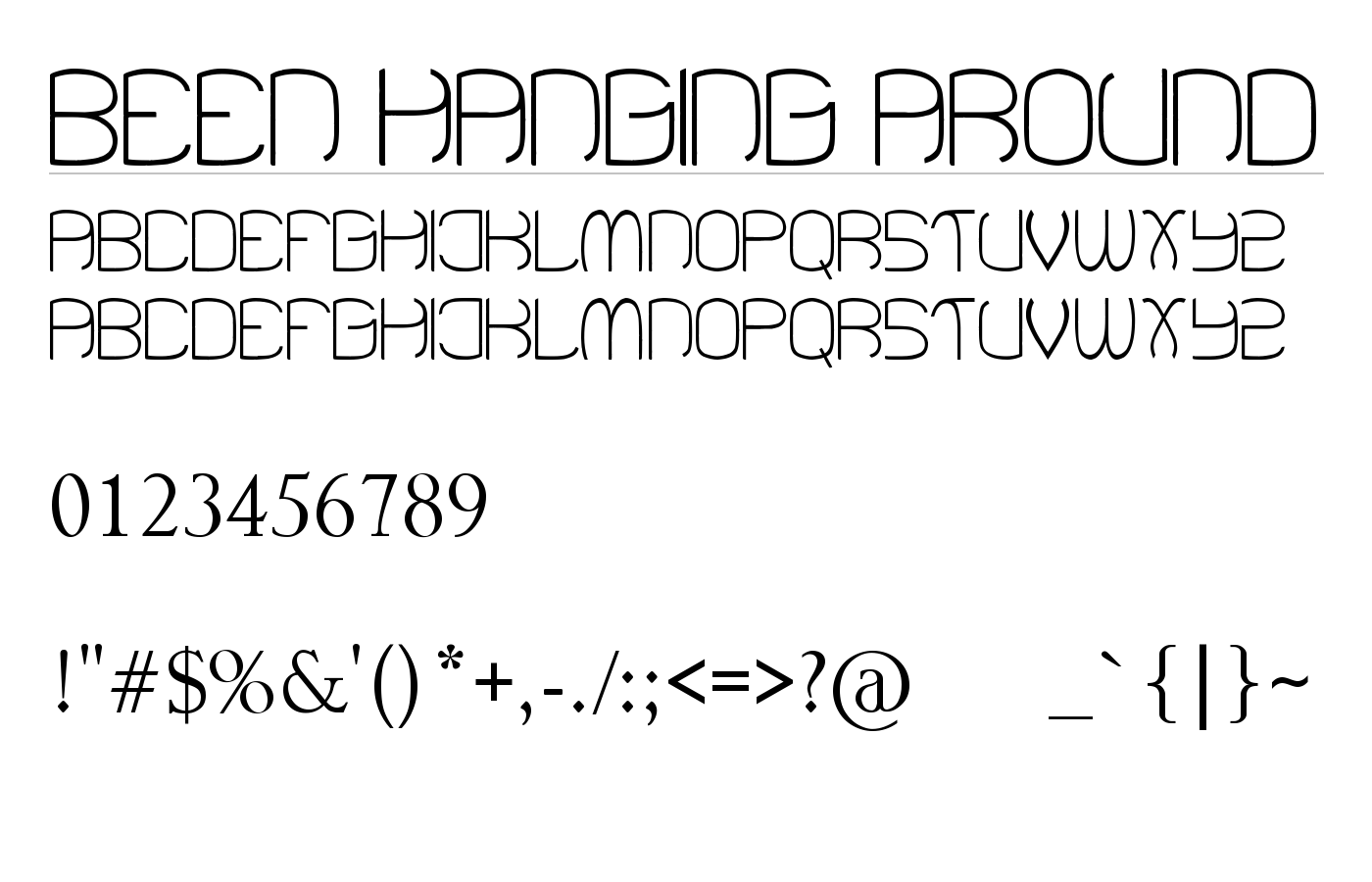
Been Hanging Around is a thin, geometric sans serif font with a modern and playful character. Its light stroke weight and unique, slightly rounded letter shapes create an airy and distinctive look, perfect for creative branding and stylish display use. This font works well in headlines, logos, and designs that want to convey a fresh, contemporary vibe with personality.
Been Hanging Around Font
About Been Hanging Around Font